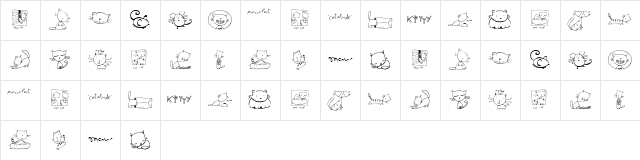
rated ed
Style: ed
Design Context for rated
rated is a composed and adaptable typeface that performs quietly and consistently across a wide range of design contexts.